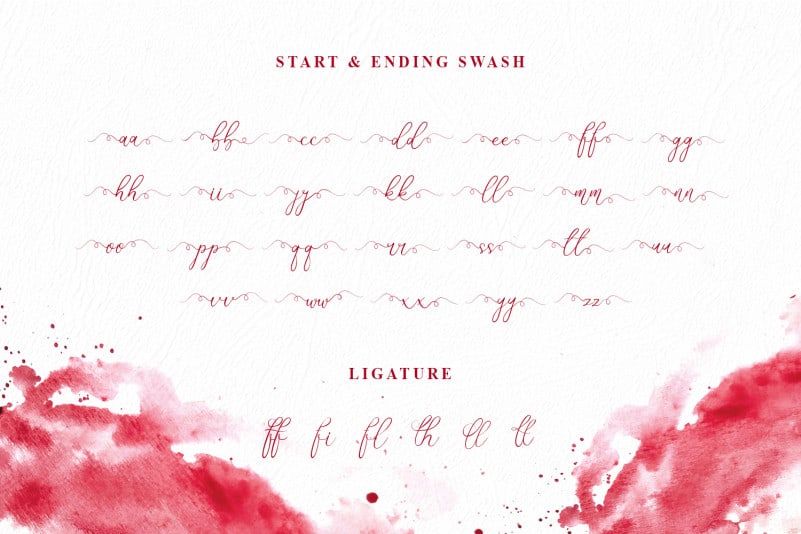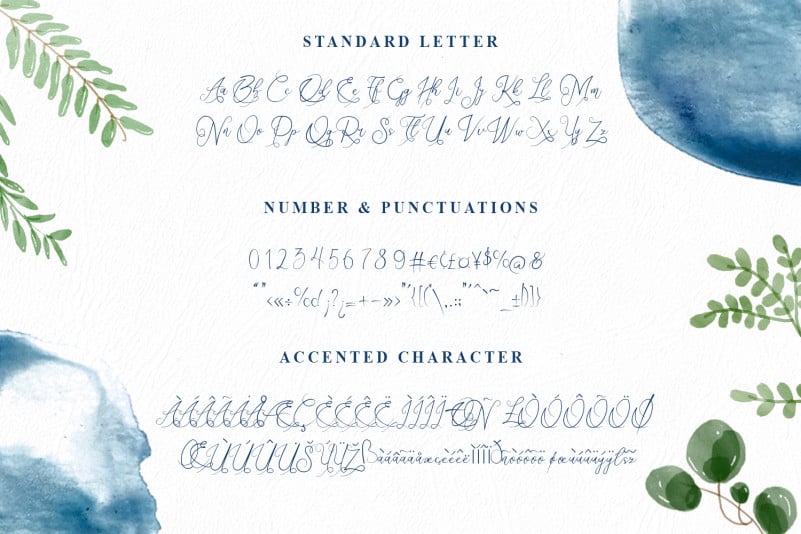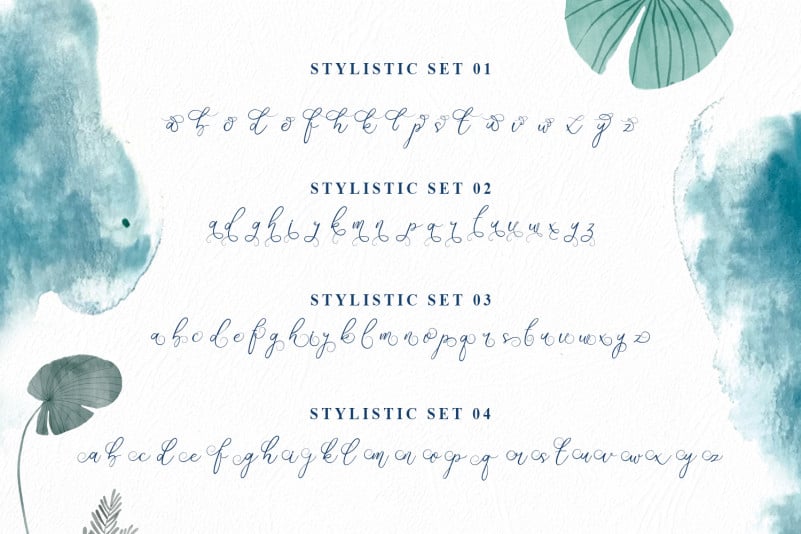
Rosetta Calligraphy Font
The name Rosetta Calligraphy Font is a girl’s name of Italian, Persian origin meaning “splendid”.Associated with the ancient Rosetta stone, this is also the pretty Italian pet form of Rosa. Rosetta is a beautiful script calligraphy font with many alternative styles, this font looks natural, elegant and perfect for any project.